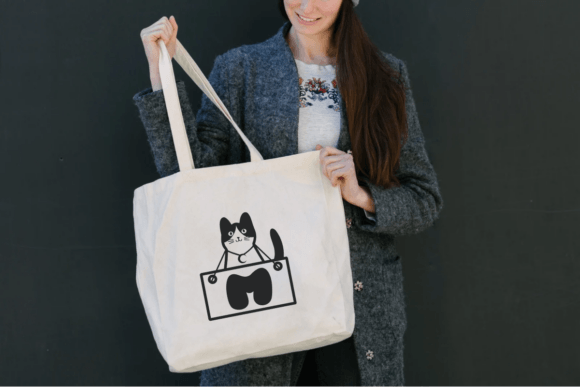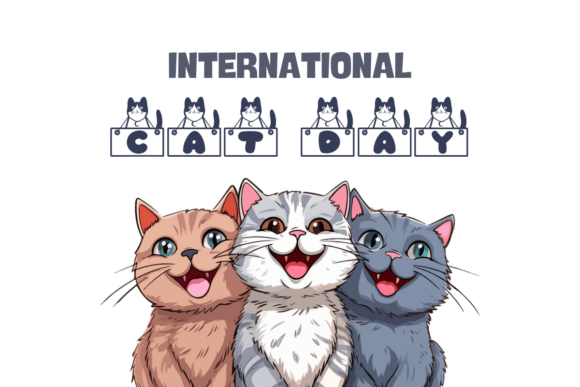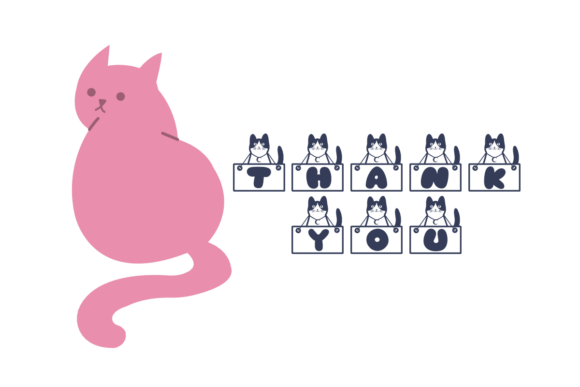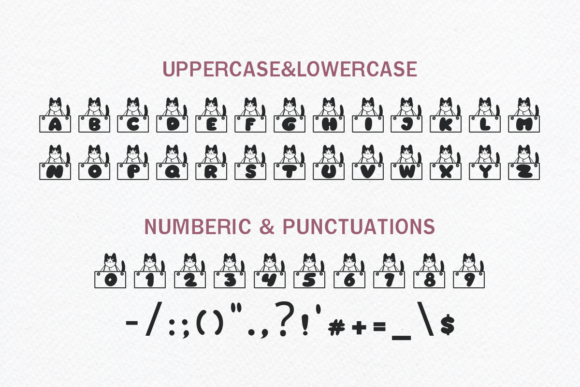
Meet Your New Feline Friend: Cat Font
Who hasn’t found themselves doodling a cute cat or two in their notebooks during a brainstorming session? I know I have! Those carefree moments of creativity can often spark the most innovative ideas. And that’s exactly what happened when the creators of Cat Font brought their playful feline design to life. This adorable font is a must-have for any cat lover or designer looking to add a touch of whimsy to their projects.
As a decorative font, Cat Font features a charming cat with a letter card hanging around its neck, surrounded by playful, cat-like shapes. Its purpose is simple: to bring a smile to your face and make your design projects more fun. For designers, Cat Font is a valuable addition to their toolkit, offering a unique way to add personality to their work and connect with their audience on a more emotional level.
Cat Font Key Features
- Font Family: Cat Font is a custom-designed font family with a unique feline-inspired design.
- Character Set: Includes a wide range of characters, including uppercase and lowercase letters, numbers, and special symbols, making it suitable for various applications.
- Unique Characteristics: Distinctive feline-inspired design elements, such as whiskers and paw-like shapes, add a touch of whimsy and playfulness to text.
Designer Review: Cat Font
Overall, I have mixed feelings about Cat Font. While it has some unique features, it falls short in other areas. Here’s a breakdown of what I liked and disliked.
- Cute and playful design: Cat Font is perfect for cat lovers and those looking for a fun, whimsical font. The illustrations of cats incorporated into the letters add a personal touch.
- High-quality illustrations: The illustrations of cats are well-drawn and add a level of sophistication to the font.
- Limited functionality: Cat Font is primarily a decorative font and lacks the functionality of a standard font. It’s not suitable for body text or large blocks of text.
- Difficult to read: The illustrations and playful design can make the font difficult to read, especially at smaller font sizes.
While Cat Font is a unique and cute font, its limitations make it less versatile than other fonts. It’s best suited for titles, headings, or short phrases where the playful design can shine. For larger blocks of text, it’s best to choose a standard font for readability.
Some tips for getting the most out of Cat Font include:
– Using it for playful and whimsical designs.
– Combining it with other fonts for a unique look.
– Applying it to text in a creative and unexpected way.
Common use cases for Cat Font include:
– Children’s book illustrations.
– Cartoon and comic strip design.
– Social media graphics and posts.
Alternatives to “Cat Font” for Designers
Comic Sans MS is a sans-serif font designed by Vincent Connare in 1994. It’s often used for informal or playful purposes, such as in children’s books, advertisements, or social media. While it’s not as cursive as Cat Font, it has a friendly and approachable feel that can work well for certain design projects.
Comparison to Cat Font: Comic Sans MS is more straightforward and less cursive, making it a better choice for projects where you want a playful feel without the whimsical, handwritten look of Cat Font.
Great Vibes is a script font designed by Handmade Fonts in 2011. It’s known for its elegant, handwritten feel and is often used in invitations, wedding stationery, or other formal events. While it’s more elegant than Cat Font, it shares a similar sense of movement and fluidity.
Comparison to Cat Font: Great Vibes is more refined and sophisticated, making it a better choice for projects where you want a sense of luxury or elegance without the cursive feel of Cat Font.